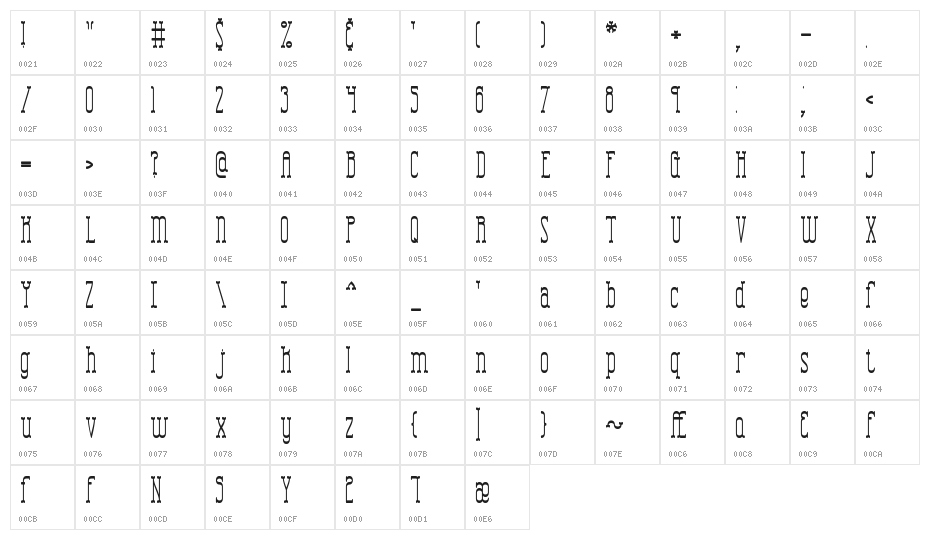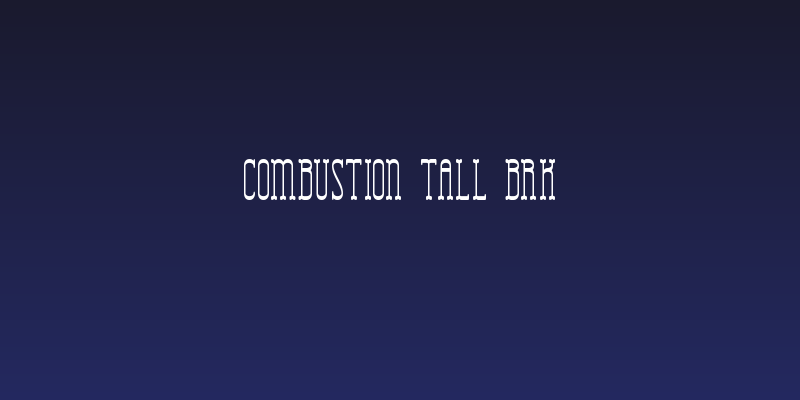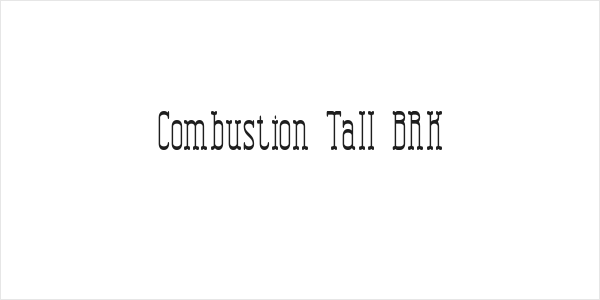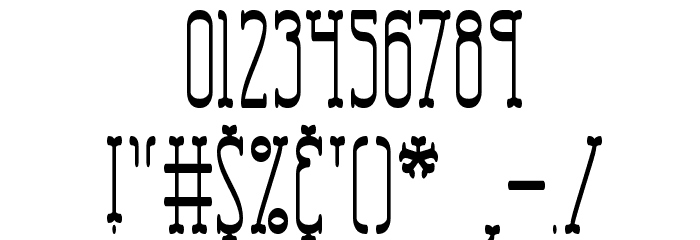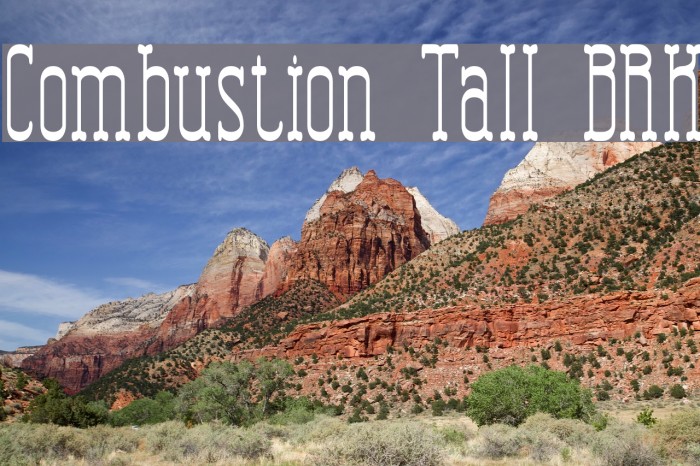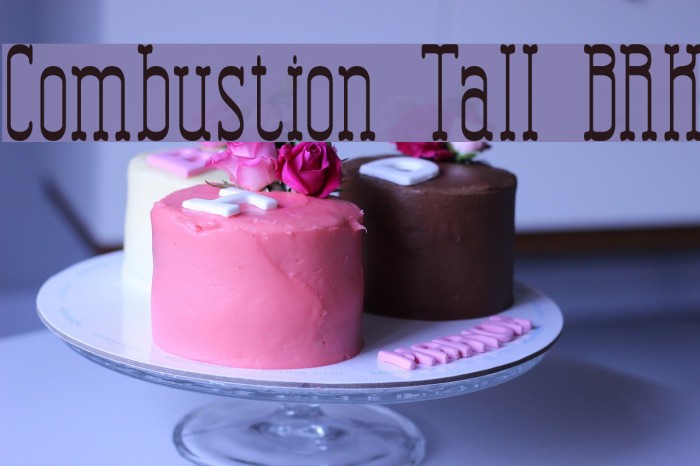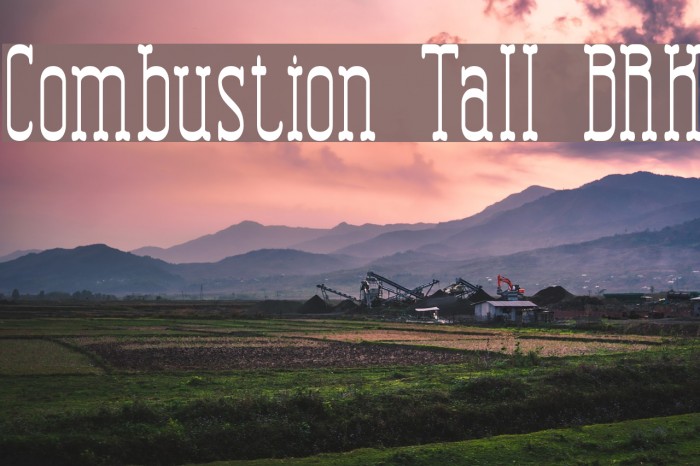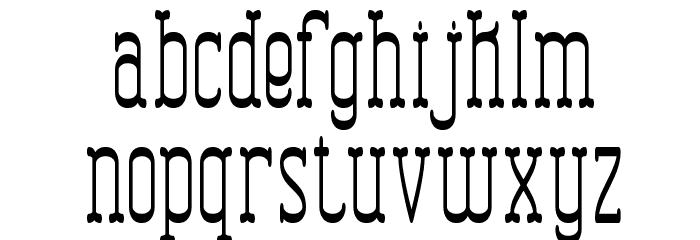
Combustion Tall BRK Font
Combustion Tall BRK Description
This font features a unique and playful design with elongated characters and rounded terminals, giving it a distinct and whimsical appearance. The uppercase letters are tall and narrow, while the lowercase letters maintain a consistent height, creating a harmonious balance. The numerals and special characters are designed to match the overall style, with consistent line thickness and rounded ends. This font's quirky and decorative nature makes it stand out, offering a fun and engaging visual experience.
| Proposed Projects | Ideal for children's books, playful branding, posters, and creative design projects. |